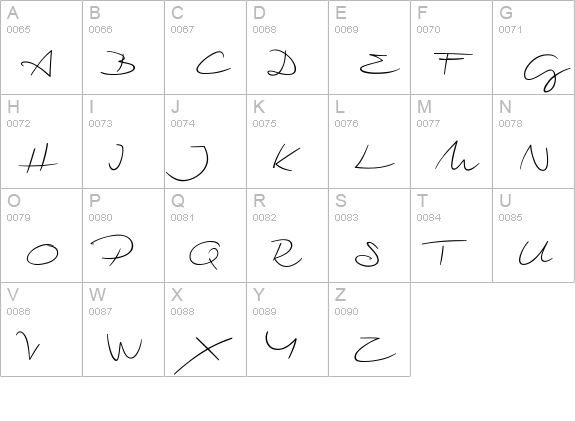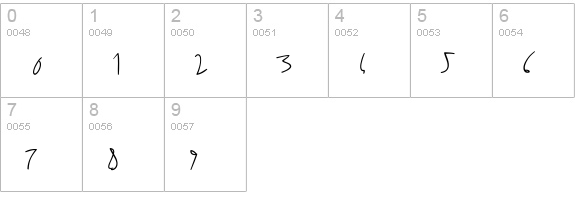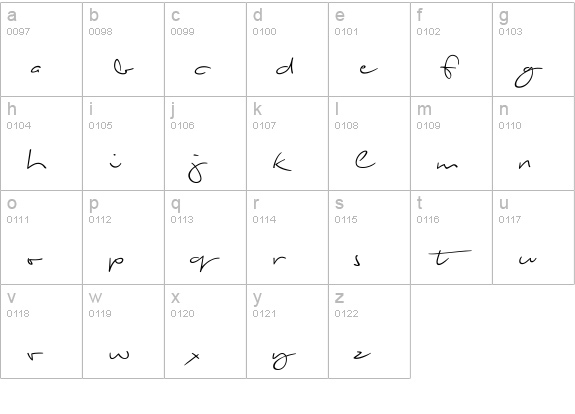
Biloxi Script Font Details
Introducing Biloxi Script, a stunning and elegant font that effortlessly combines traditional calligraphy with a modern twist. With its graceful curves and flowing lines, this font is perfect for adding a touch of sophistication to any project. Biloxi Script is a versatile typeface that can be used for a wide range of design purposes. From wedding invitations and branding materials to signage and headlines, this font is sure to make a lasting impression. Its unique hand-drawn look adds a personal and authentic feel to any design. But what sets Biloxi Script apart is that it's not just beautiful, it's also free! That's right, this incredible font is freely available to download at FontsMarket.com. Whether you're a professional designer or an enthusiastic hobbyist, you can now access this stunning font without breaking the bank. Downloading Biloxi Script is a breeze, and once you have it in your font library, the possibilities are endless. With its extensive character set and multiple stylistic alternates, you can customize and play with different looks to suit your creative vision. From delicate swashes to bold ligatures, this font offers endless opportunities for creative expression. So why wait? Discover the beauty and versatility of Biloxi Script today. Add an elegant touch to your designs, and make a powerful statement with this stunning font. Download it for free at FontsMarket.com and let your creativity shine.